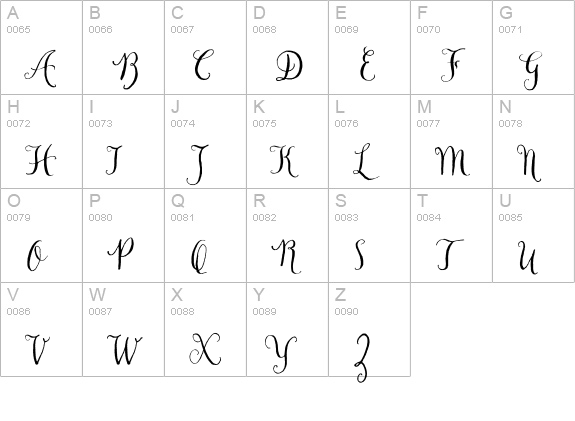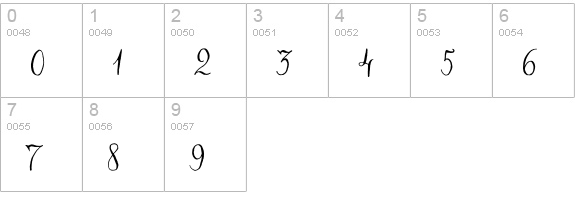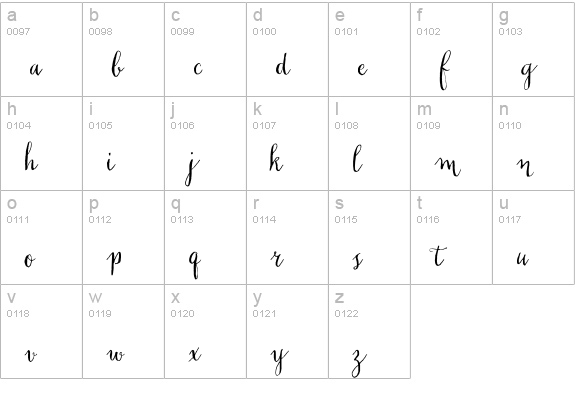
Chameleon Pen font is a versatile and stylish typeface that combines elegance with a touch of playfulness. With its unique and eye-catching design, this font is perfect for a wide range of projects, from branding to invitations to social media graphics. The fluid lines and dynamic curves of Chameleon Pen font give it a modern and artistic look that will make your text stand out. The best part about Chameleon Pen font is that it is available for free! You can easily download this font at FontsMarket.com and start using it in your projects right away. Whether you're a designer looking for a fresh new font or someone who just wants to add a creative touch to their work, Chameleon Pen font is the perfect choice. Don't miss out on this opportunity to enhance your designs with this fabulous font - download it now and let your creativity shine!